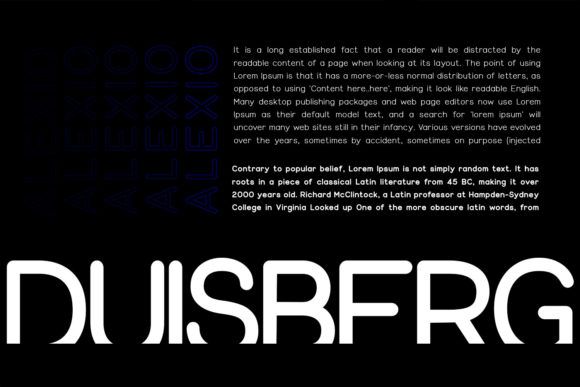
Introducing Alexio Font: Elevate Your Designs with a Natural and Clean Display Font
In the world of typography, fonts play a crucial role in making or breaking a design. A well-chosen font can elevate your creative project, adding a touch of personality and sophistication. If you’re on the hunt for a versatile and visually appealing display font, look no further than Alexio Font. In this article, we’ll dive into the features and benefits of Alexio, and explore how it can enhance your designs.
What is Alexio Font?
Alexio is a natural and clean display font designed to make your creative ideas stand out. Its unique blend of modernity and elegance makes it an excellent choice for a wide range of projects, from branding and advertising to packaging and digital media. With Alexio, you can add a touch of sophistication and refinement to your designs, setting them apart from the rest.
Key Features of Alexio Font
- Natural and Clean Design: Alexio boasts a clean and natural design, making it perfect for designs that require a touch of elegance and sophistication.
- Versatility: This font is incredibly versatile and can be matched with a large set of projects, ensuring that it will become a staple in your design toolkit.
- Display Font: Alexio is specifically designed as a display font, making it ideal for headlines, titles, and other prominent text elements.
Benefits of Using Alexio Font
So, why should you choose Alexio Font for your next project? Here are just a few benefits of using this exceptional display font:
- Enhance Your Brand’s Visual Identity: With Alexio, you can create stunning brand assets that reflect your company’s personality and values.
- Stand Out in a Crowded Market: In a world where designs are constantly competing for attention, Alexio helps you cut through the noise and make a lasting impression.
- Streamline Your Design Process: With its versatility and clean design, Alexio can be used across a wide range of projects, saving you time and effort in the long run.
Who Can Benefit from Alexio Font?
Alexio Font is an excellent choice for a variety of designers and crafters, including:
- Graphic Designers: Add a touch of elegance and sophistication to your branding, advertising, and marketing materials.
- Digital Designers: Use Alexio to create stunning digital assets, such as website headers, social media graphics, and more.
- Crafters and Makers: Elevate your packaging, labels, and other craft projects with this beautiful display font.
How to Get the Most Out of Alexio Font
To maximize the potential of Alexio Font, here are a few tips:
- Experiment with Different Sizes and Colors: Play around with different sizes and colors to find the perfect combination for your design.
- Pair it with Other Fonts: Combine Alexio with other fonts to create a unique and visually appealing typography scheme.
- Use it Across Multiple Projects: Take advantage of Alexio’s versatility and use it across a wide range of projects to create a cohesive visual identity.
In conclusion, Alexio Font is an exceptional display font that can elevate your designs and add a touch of sophistication and elegance. Its natural and clean design, versatility, and wide range of applications make it an excellent choice for designers and crafters. Whether you’re working on a branding project, digital asset, or craft project, Alexio is sure to make your creative ideas stand out. So why wait? Add Alexio Font to your toolkit today and discover a world of limitless design possibilities!